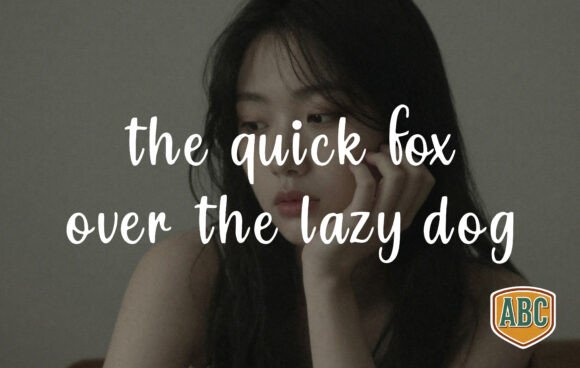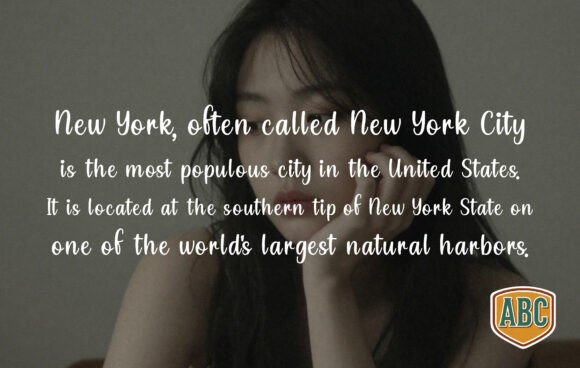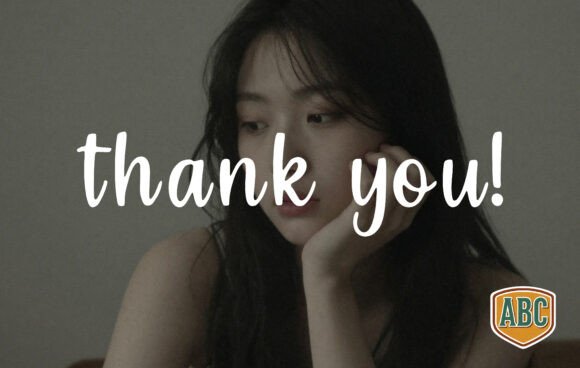
The Dim Gray Font: A Soft and Soulful Typeface for Your Design Needs
In the world of typography, fonts play a crucial role in conveying the tone and personality of a brand or design. If you’re looking for a typeface that exudes warmth, approachability, and empathy, look no further than the Dim Gray font. This soft, rounded, and highly approachable handwriting style is perfect for designers and crafters who want to create soulful branding, wellness apps, and intimate social media storytelling.
The Characteristics of Dim Gray Font
The Dim Gray font boasts a unique set of characteristics that make it an ideal choice for designs that require a personal touch. Its consistent thickness and gentle curves provide excellent legibility, while maintaining a deep sense of personality and empathy. The font’s soft, rounded edges give it a warm and inviting feel, making it perfect for quotes about mental health, lifestyle vlogs, or cozy home decor brands.
Perfect Use Cases for Dim Gray Font
The Dim Gray font is an excellent choice for a variety of design projects, including:
• Soulful branding: The font’s warm and approachable nature makes it perfect for brands that want to convey a sense of empathy and understanding.
• Wellness apps: The Dim Gray font’s soft and calming feel makes it an excellent choice for wellness apps that focus on mental health and self-care.
• Intimate social media storytelling: The font’s personal and emotive nature makes it perfect for social media storytelling that requires a deep connection with the audience.
• Quotes about mental health: The Dim Gray font’s gentle and supportive feel makes it an excellent choice for quotes about mental health and self-care.
• Lifestyle vlogs: The font’s warm and inviting nature makes it perfect for lifestyle vlogs that focus on cozy living, home decor, and personal growth.
• Cozy home decor brands: The Dim Gray font’s soft and calming feel makes it an excellent choice for cozy home decor brands that want to convey a sense of warmth and comfort.
Tips for Maximizing the Impact of Dim Gray Font
To get the most out of the Dim Gray font, here are some tips to keep in mind:
• Pair it with soft, muted tones: The Dim Gray font’s soft and calming feel is best paired with soft, muted tones that complement its warm and inviting nature.
• Use plenty of white space: Giving the Dim Gray font plenty of white space to breathe will allow its friendly nature to shine through and create a sense of elegance and sophistication.
• Experiment with different sizes: The Dim Gray font’s excellent legibility makes it perfect for use in a variety of sizes, from large headings to small body text.
Design Ideas for Dim Gray Font
The Dim Gray font is a versatile typeface that can be used in a variety of design projects, including:
• Digital diaries: The font’s personal and emotive nature makes it perfect for digital diaries and journals that require a deep sense of intimacy and connection.
• Supportive community platforms: The Dim Gray font’s warm and inviting nature makes it an excellent choice for supportive community platforms that focus on mental health and self-care.
• Cozy home decor blogs: The font’s soft and calming feel makes it perfect for cozy home decor blogs that focus on warm and inviting living spaces.
The Dim Gray font is a unique and versatile typeface that offers a soft, rounded, and highly approachable handwriting style. Its warm and inviting nature makes it perfect for designers and crafters who want to create soulful branding, wellness apps, and intimate social media storytelling. With its excellent legibility and deep sense of personality and empathy, the Dim Gray font is an ideal choice for a variety of design projects. By pairing it with soft, muted tones and plenty of white space, you can maximize its impact and create designs that feel like a warm hug.